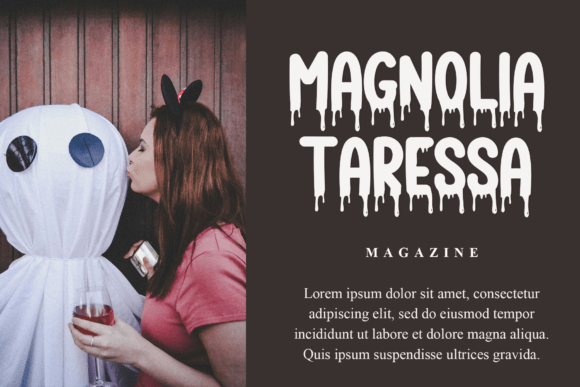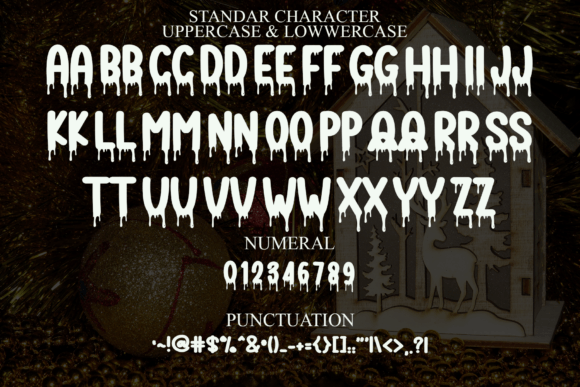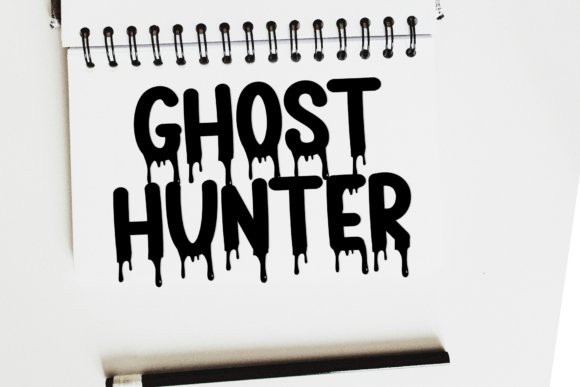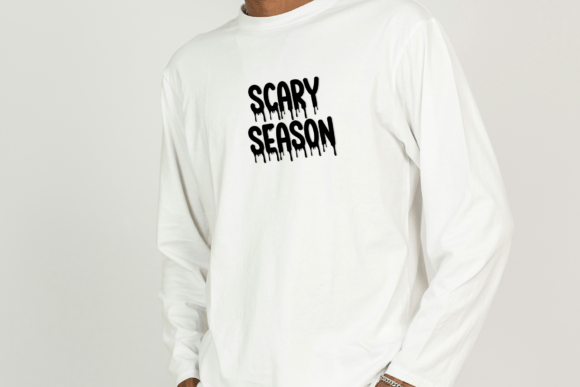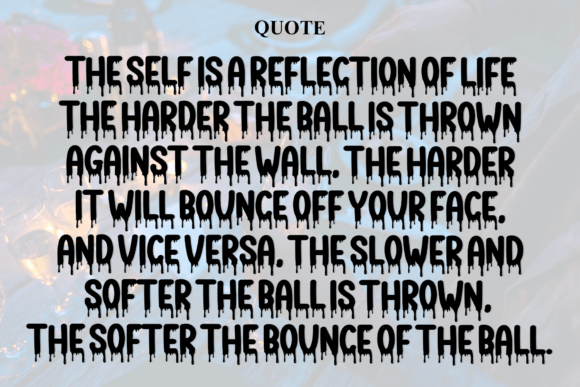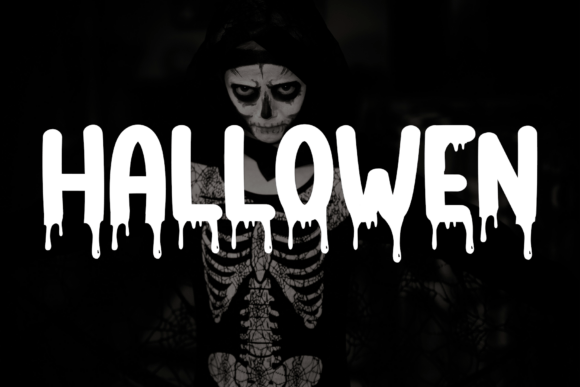
The Elusive Font: A Designer’s Journey to Discovering Ghost Party
I still remember the frustration of working on a design project, hours spent scrolling through font libraries, and yet, nothing seemed quite right. The client wanted something unique, something that would make their brand stand out. And then, it happened – I stumbled upon the Ghost Party font. It was as if the design gods had finally answered my prayers. In this article, I’ll share my experience with this beautiful font, its features, and how you can make the most of it in your creative projects.
First Impressions: A Review of Ghost Party Font
So, what makes Ghost Party so special? Let’s dive into the good stuff and, of course, a few quirks I noticed.
- ✨ Unique and Eye-Catching: The soft, distinctive strokes give Ghost Party a special character that’s hard to ignore.
- ✅ Versatility: It’s perfect for a wide range of design projects, from crafts to professional branding.
- 🌈 Variety of Characters: The font comes with various characters, making it suitable for projects that require a bit of flair.
- 🤔 Learning Curve: Due to its unique features, there might be a slight learning curve, especially for those new to OpenType features or glyphs.
The Story Behind Ghost Party: Designer Inspiration
While the origins of Ghost Party are somewhat mysterious, it’s believed to have been designed by a creative team passionate about bringing unique typography to the masses. Their goal was to craft a font that’s not only beautiful but also highly versatile, suitable for everything from handmade crafts to professional design projects.
Q: What makes Ghost Party font unique?
A: Its soft, distinctive strokes and variety of characters make it stand out from more traditional fonts.
Q: Is Ghost Party suitable for professional design projects?
A: Absolutely! Its versatility and compatibility with various platforms make it ideal for professional use.
In conclusion, Ghost Party is more than just a font – it’s a creative tool that can elevate your designs and make them more engaging. Whether you’re a designer, crafter, or hobbyist, this font offers a unique touch that’s sure to impress. So, go ahead and experiment with Ghost Party in your next project. You won’t be disappointed!